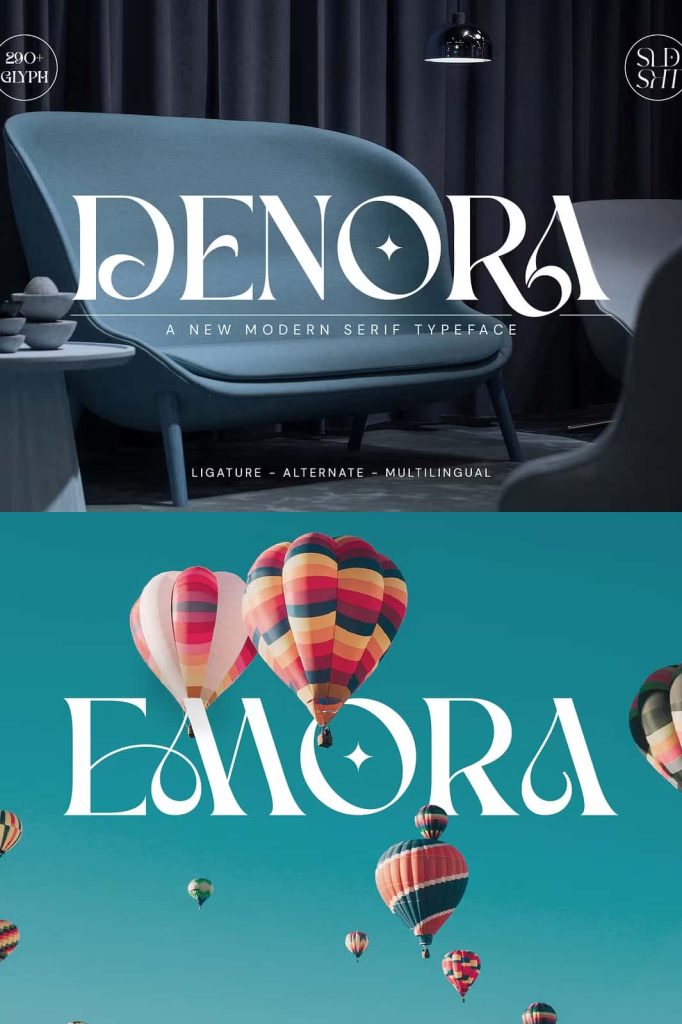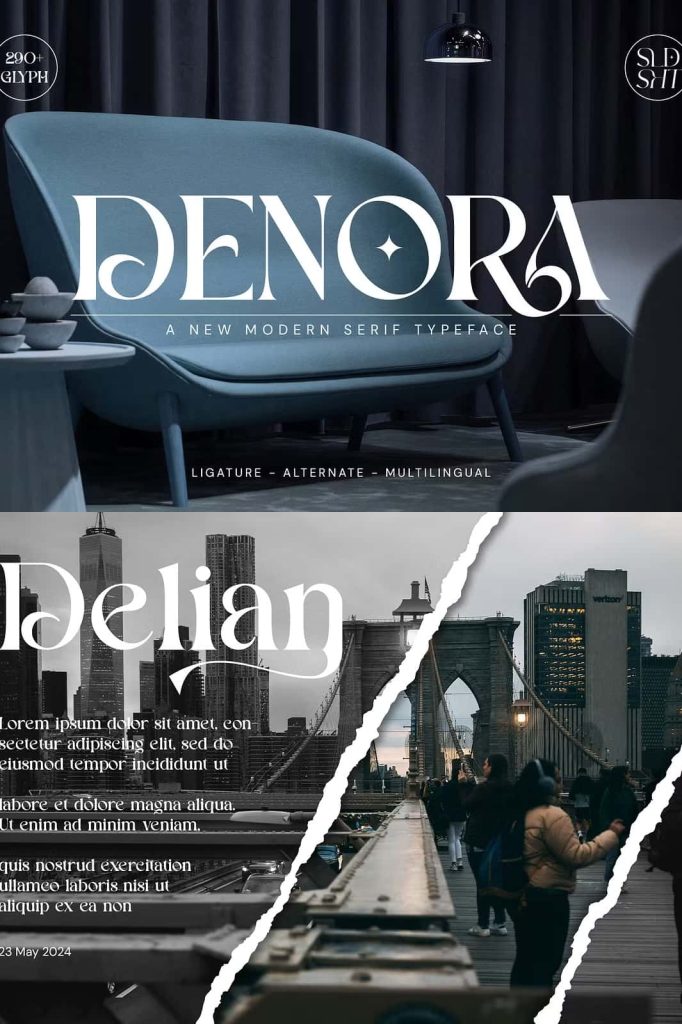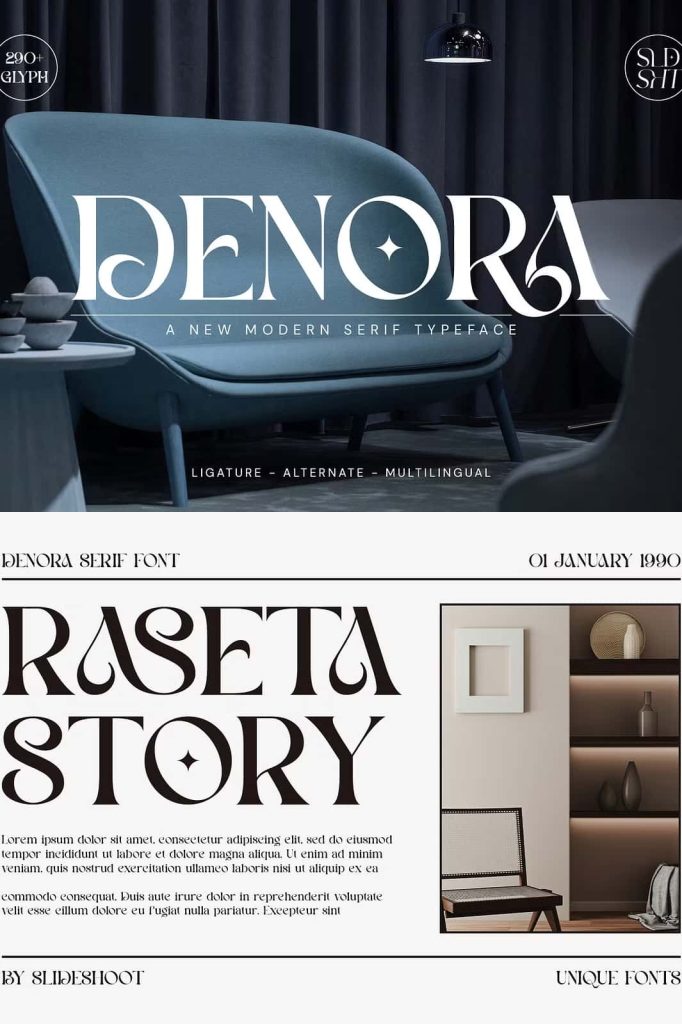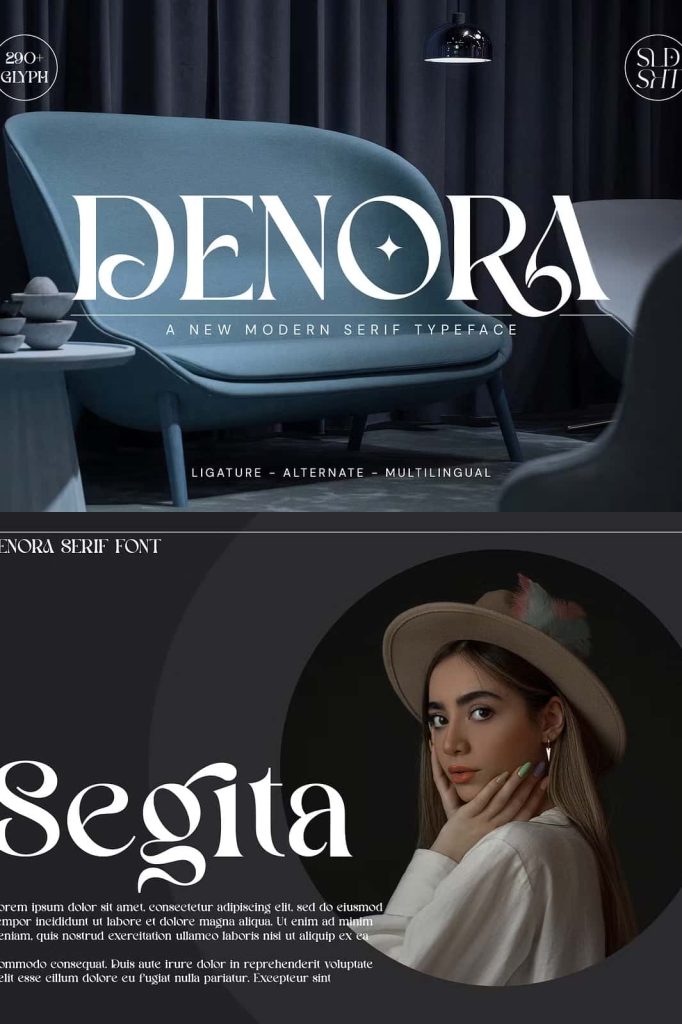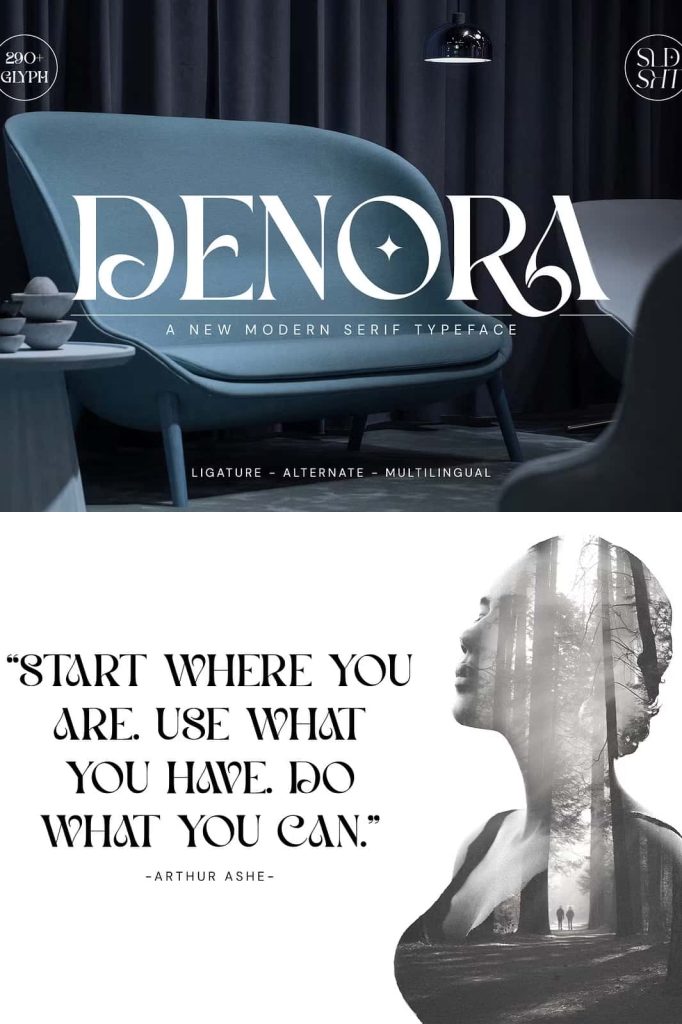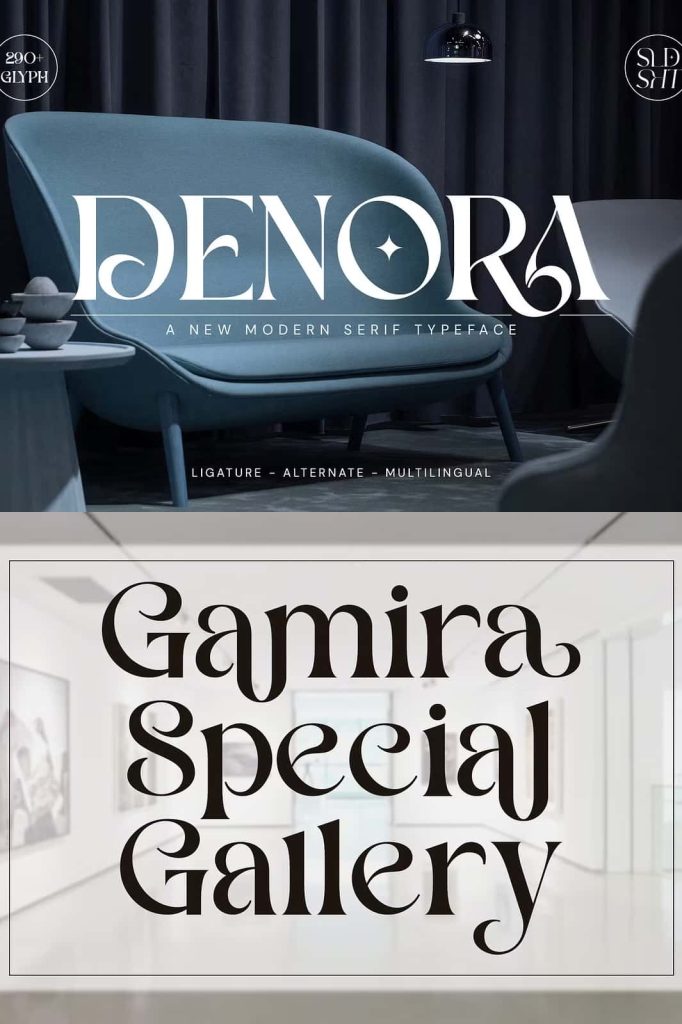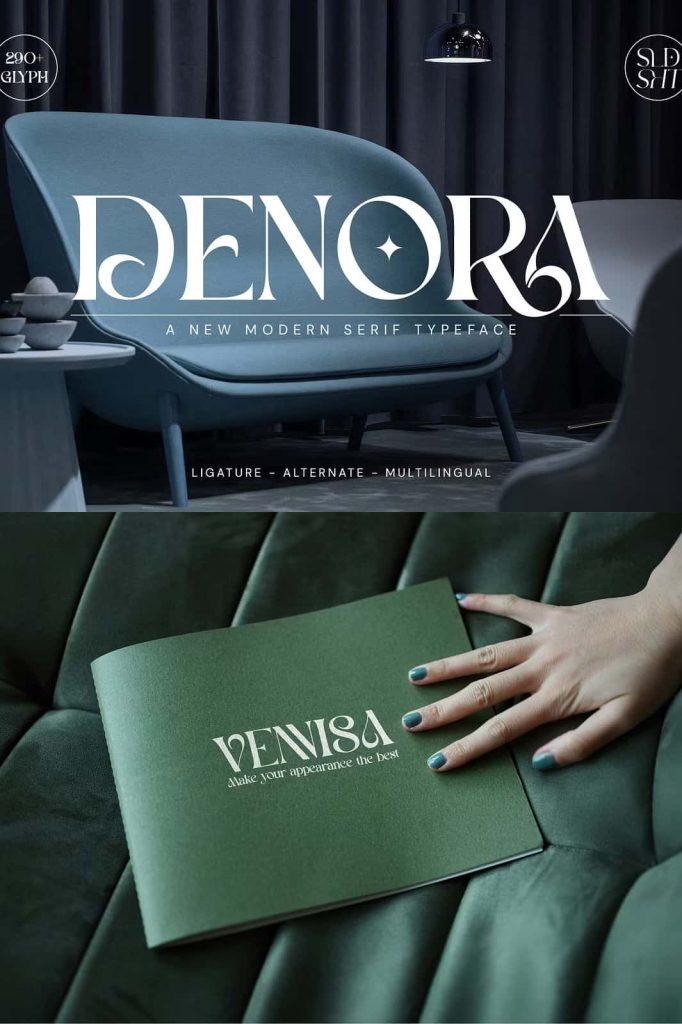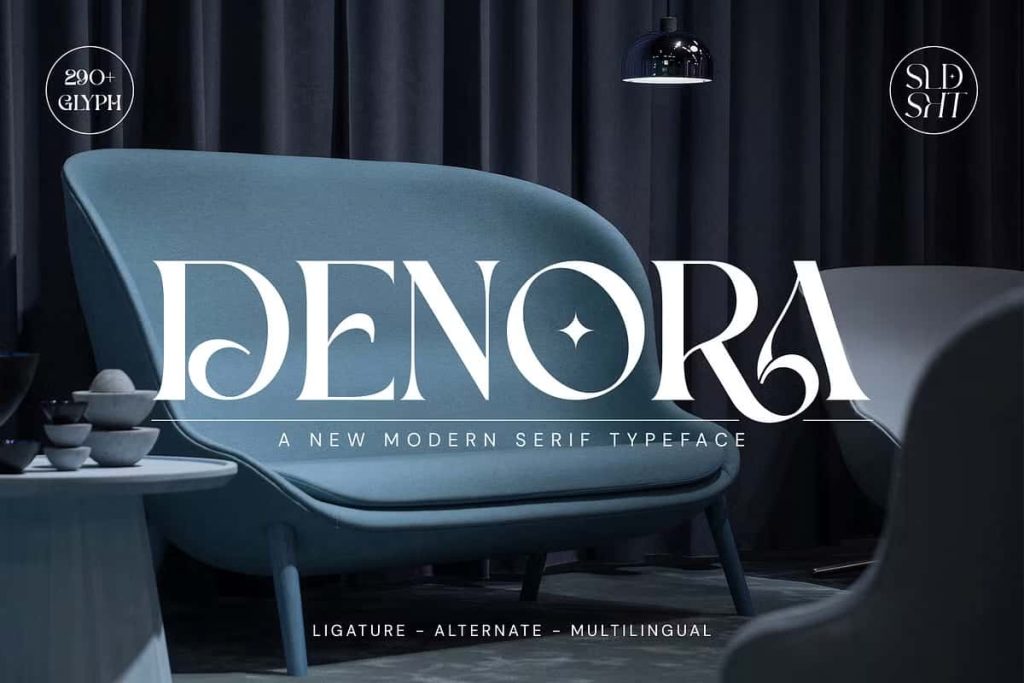
Denora Modern Serif FontleastedJuly 20, 2025Fonts Denora Serif is a balanced, smooth, elegant and stylish serif font. He has a beautiful character. Download